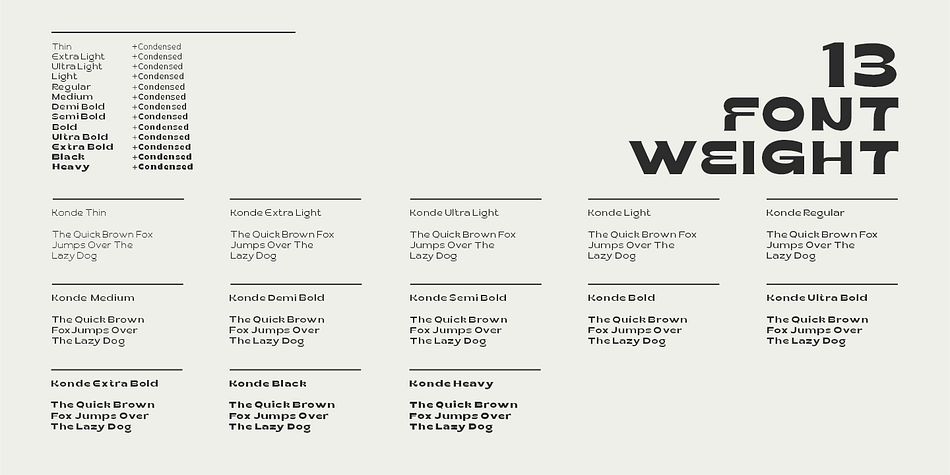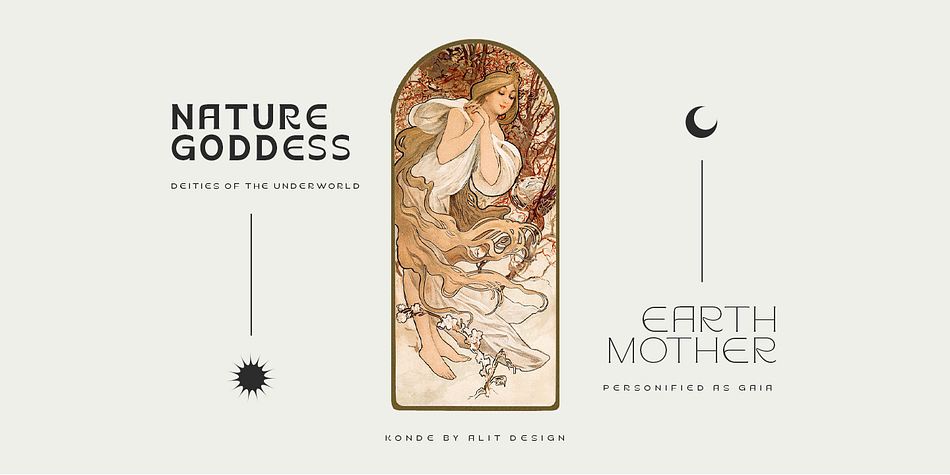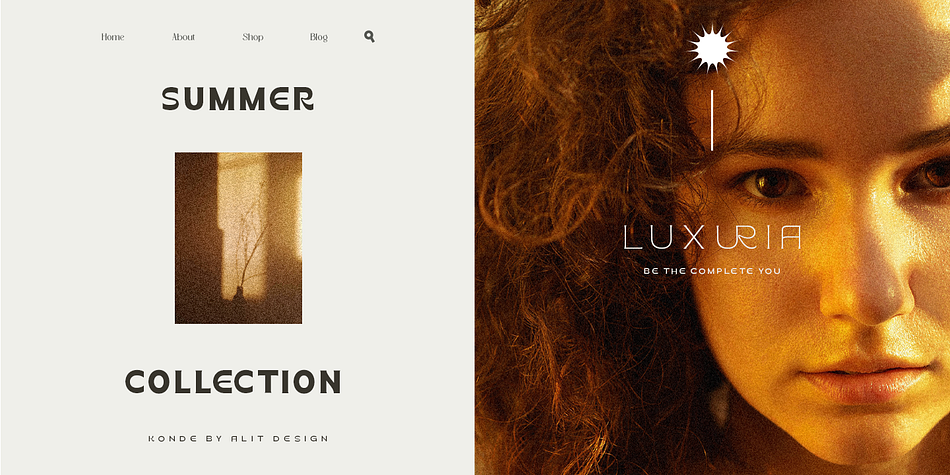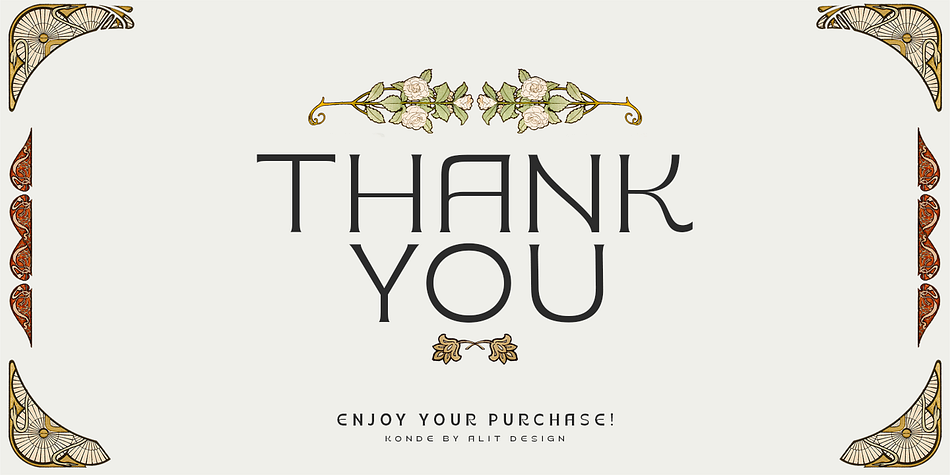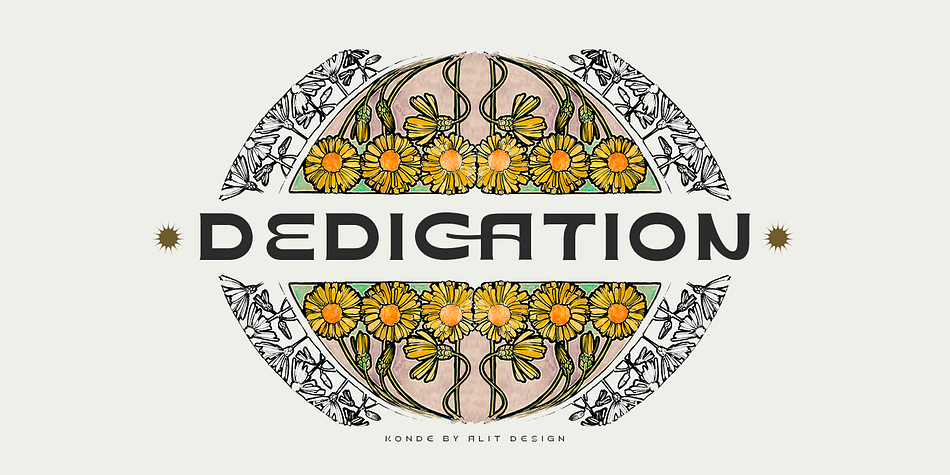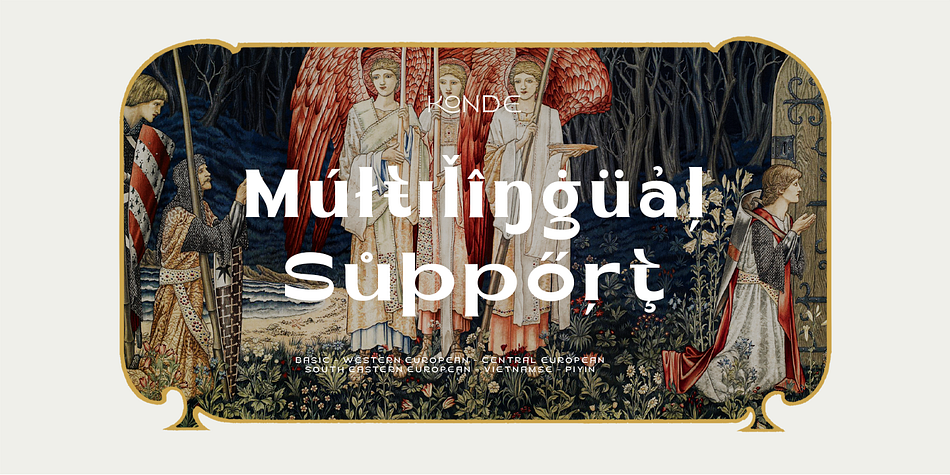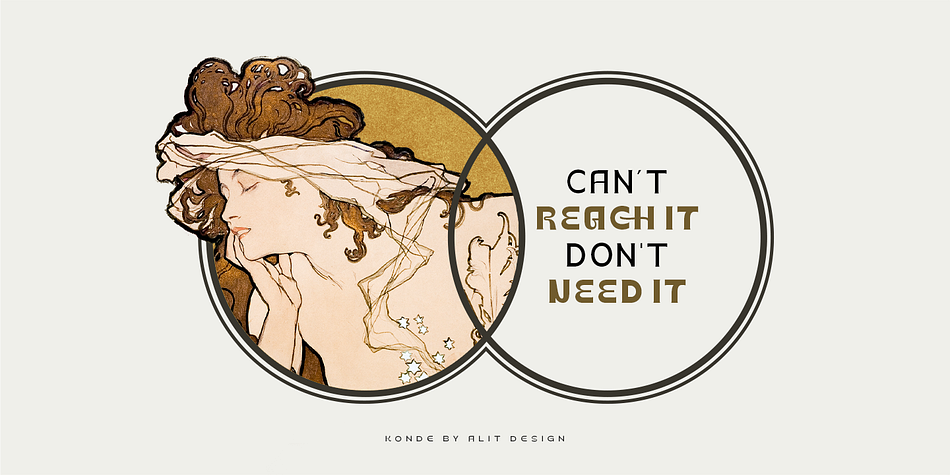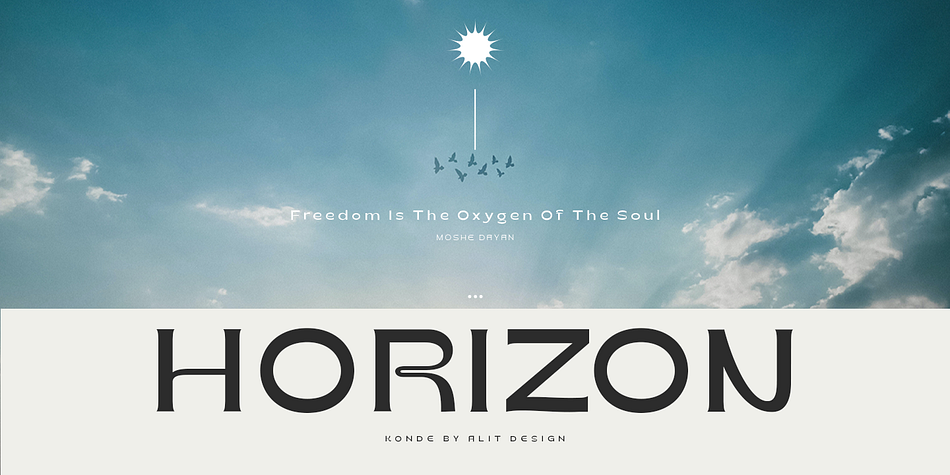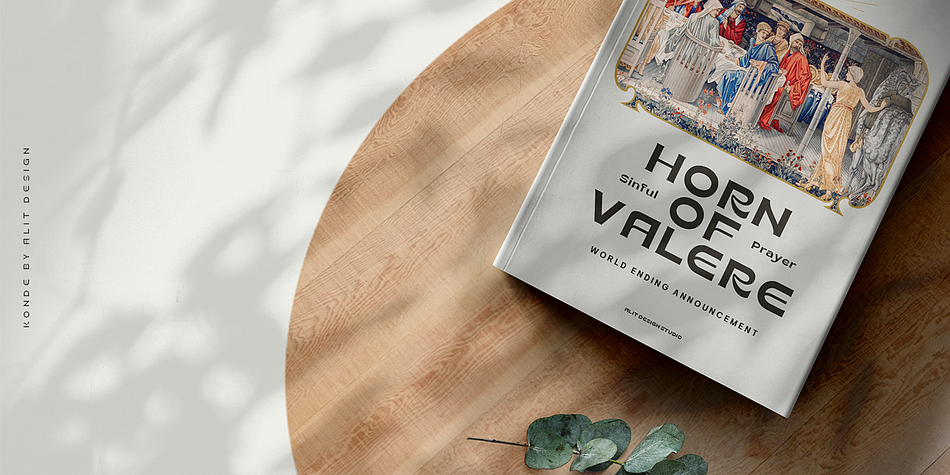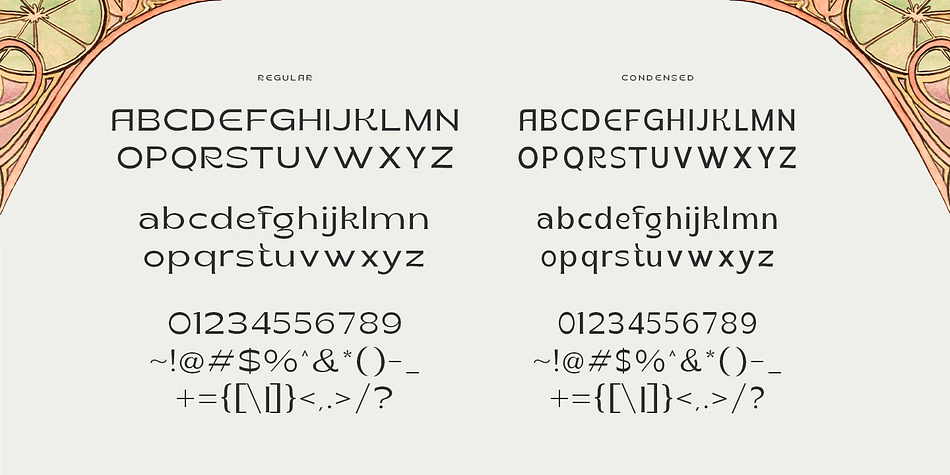
Designed by Alit Suarnegara, Konde is a display sans font family. This typeface has twenty-six styles and was published by Alit Design.
Introducing Konde Typeface
Konde font is designed with a retro style concept that has a unique and cool shape. It is suitable for header text fonts, book covers and designs that have a retro elegant concept, besides that Konde font is also very good when used for body text. Konde font has 26 families from Thin to Heavy and Condensed.
Sans Serif typefaces such as “Konde typeface” are very easy to apply to any design, especially those with an retro and classic concept, besides that this font is very easy to use both in design and non-design programs because everything changes and glyphs are supported by Unicode (PUA).
The Konde typeface contains 549 glyphs with many unique and interesting alternative options. Plus, there’s a cool sans serif font family for header and description text from thin to heavy and thin condensed to heavy condensed. In the poster preview all the letters are in the Konde typeface.